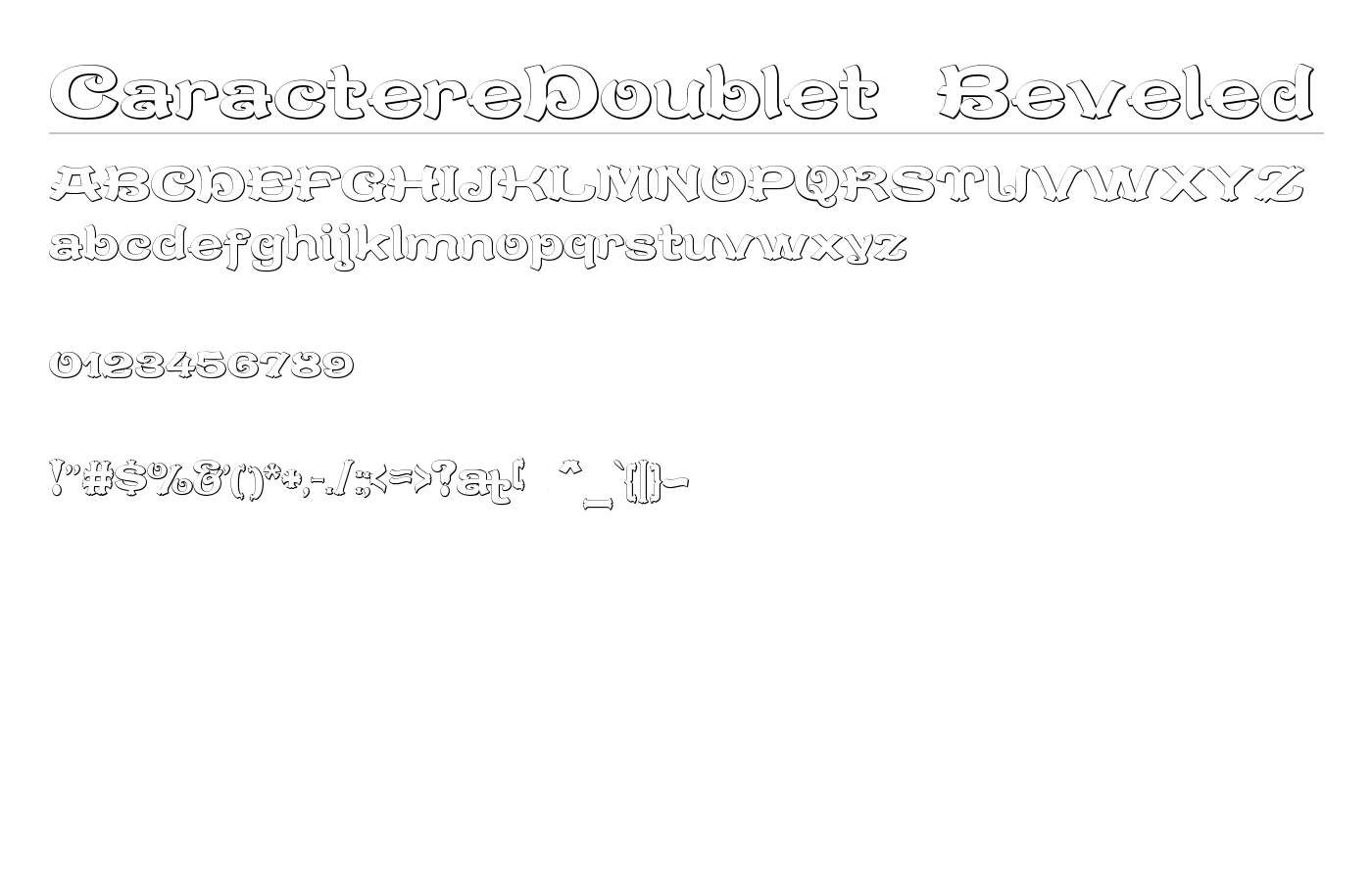
CaractereDoublet Beveled is a playful, decorative serif font with bold, beveled edges that create a 3D effect, giving the letters a standout, sculpted look. Its unique double-story shapes and heavy serifs blend vintage charm with a whimsical personality, making it ideal for eye-catching headlines, logos, and creative packaging that want to convey fun and distinctive character.
CaractereDoublet Beveled Font
About CaractereDoublet Beveled Font